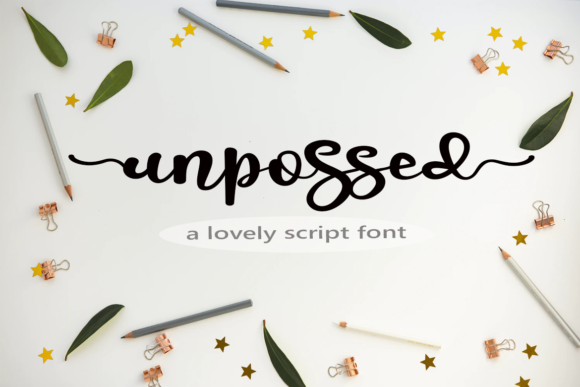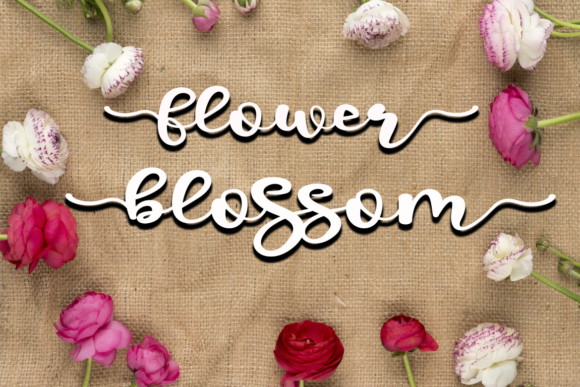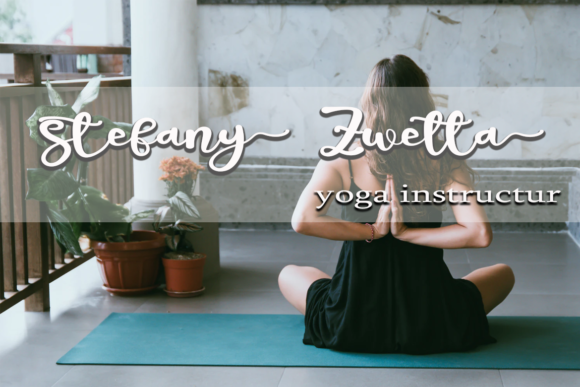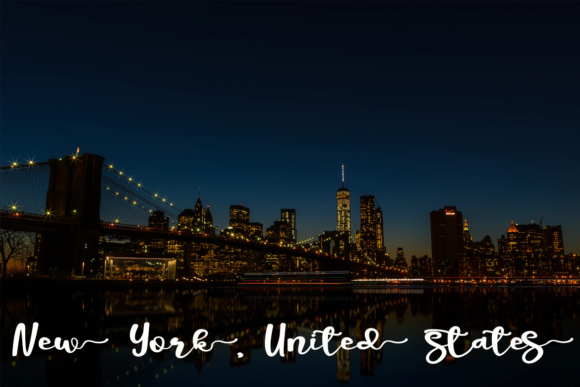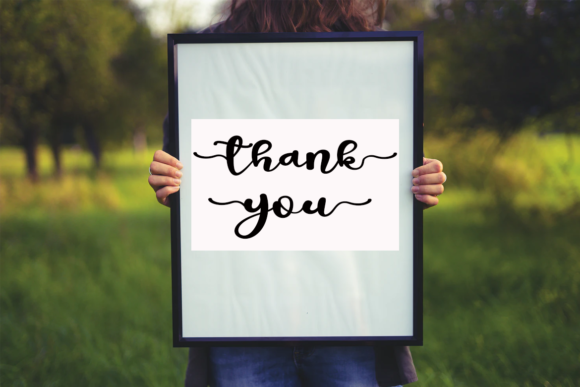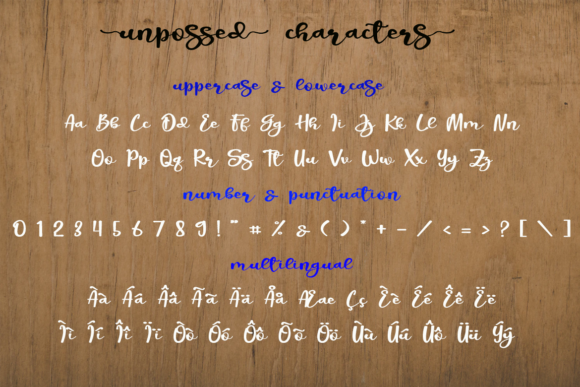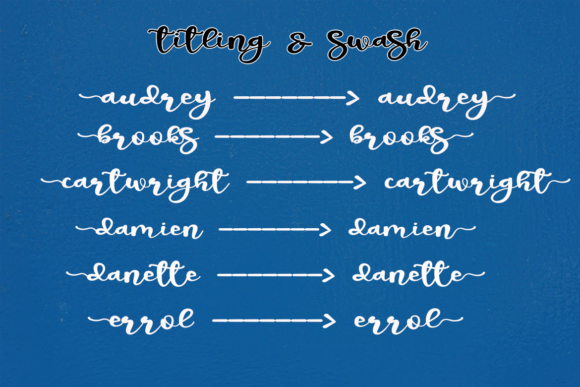
Unpossed Font
About Unpossed Font
“Unpossed” sounds like a flowing and elegant handwritten font that exudes a timeless charm, making it a perfect choice for various design projects. Here are some features that make this font captivating:
Flowing and Elegant: The flowing and elegant style of “Unpossed” gives a sense of fluidity and grace to the text, making it visually pleasing and appealing to the eye.
Distinct and Timeless: The font’s distinct and timeless style ensures that it remains relevant and captivating across different design trends and time periods.
Versatile Usage: “Unpossed” is a versatile font that can be used in a wide range of projects, including but not limited to wedding invitations, thank you cards, quotes, greeting cards, logos, and more.
Spectacular Designs: With “Unpossed,” designers have the opportunity to create stunning and eye-catching designs that stand out from the crowd.
Sophisticated Aesthetics: The font’s elegant touch adds a level of sophistication to any design, making it suitable for formal occasions and projects that require a touch of refinement.
Timeless Appeal: “Unpossed” is a font that can evoke a sense of nostalgia and elegance, making it perfect for projects that aim to convey a classic and enduring style.
Customization Options: Designers can explore the font’s various alternates and glyphs, giving them the freedom to customize the typography and create unique and personalized designs.
Overall, “Unpossed” is a versatile and sophisticated handwritten font that offers designers a plethora of creative possibilities. Its flowing and elegant nature, combined with timeless appeal, makes it an ideal choice for an array of design projects. Whether used in wedding invitations, thank you cards, quotes, greeting cards, or logos, “Unpossed” is sure to add a touch of elegance and allure to any creative endeavor. Fall in love with the distinct and captivating style of “Unpossed,” and unleash its potential to create spectacular and unforgettable designs!